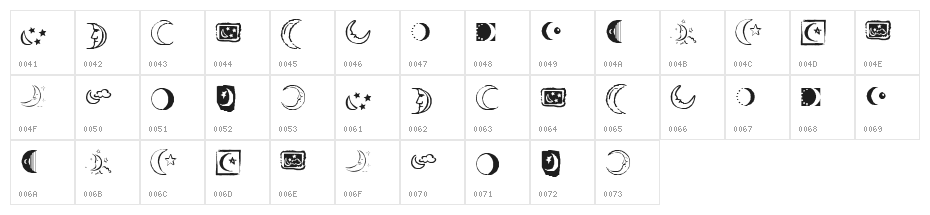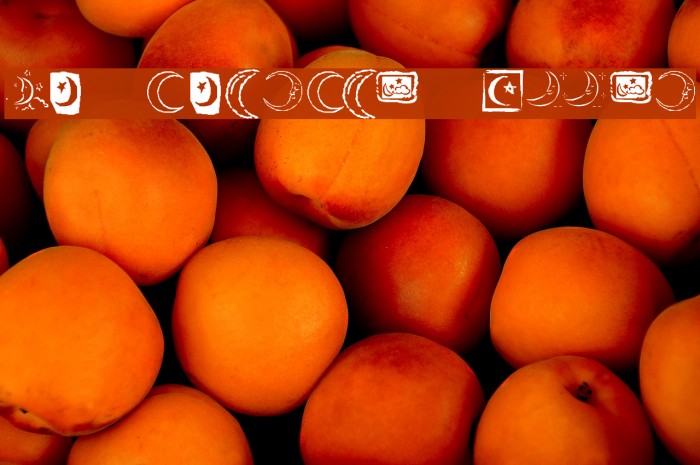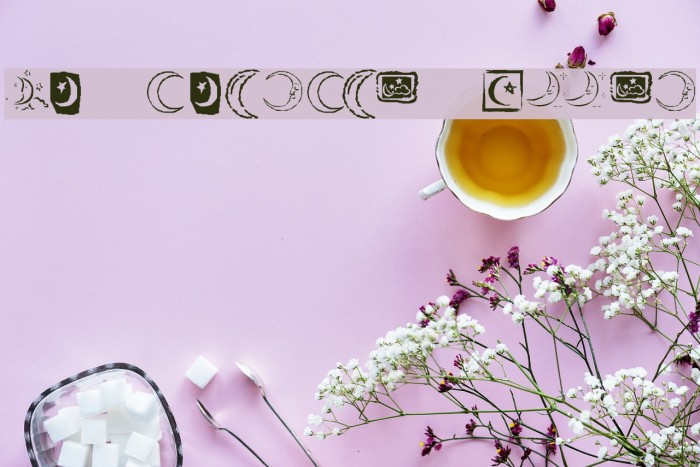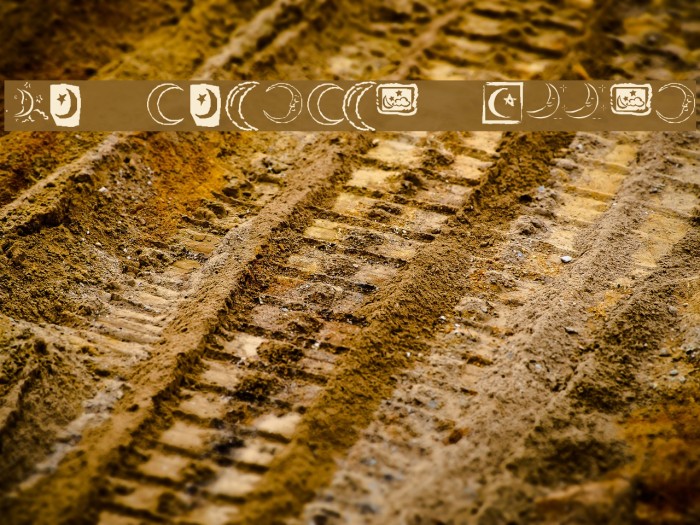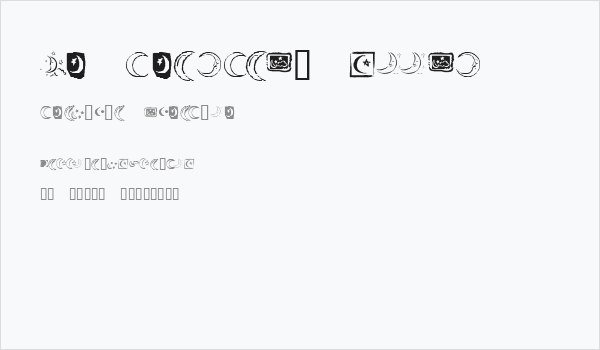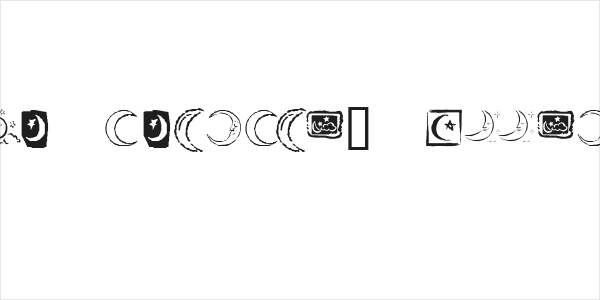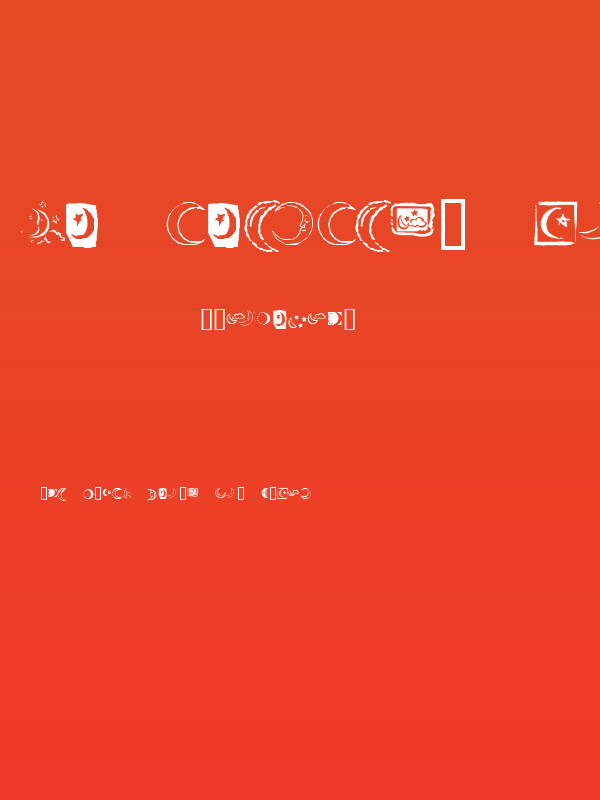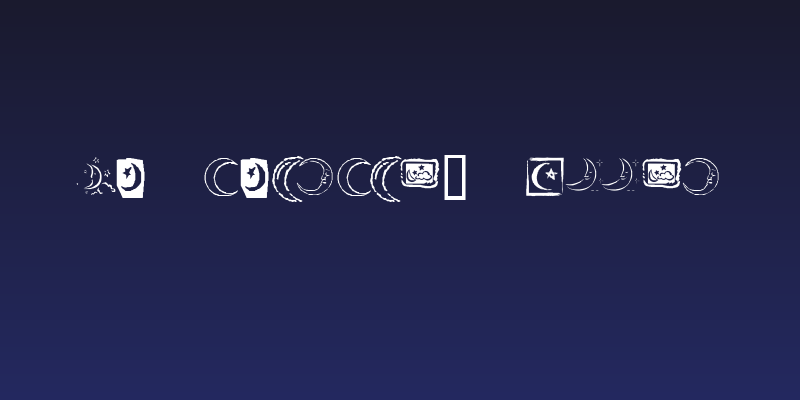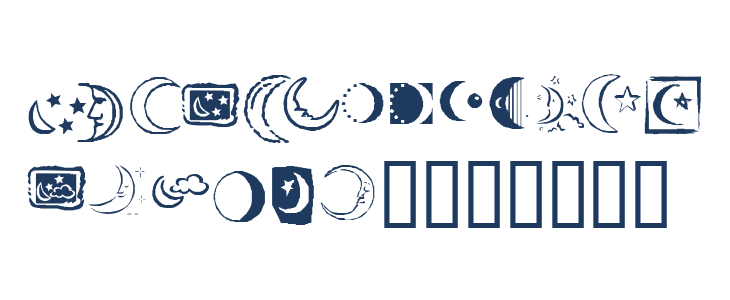
KR Crescent Moons Font
KR Crescent Moons Description
A decorative dingbat font featuring various crescent moon, star, cloud, and night sky illustrations in a hand-drawn style. Each glyph represents a unique celestial or night-themed icon rather than standard alphanumeric characters.
| Overall Style | Decorative, Hand-drawn, Whimsical |
| Use Case | Icons, Decorative elements, Themed graphics |
| Proposed Projects | Children's books, greeting cards, scrapbooking, themed party invitations, decorative borders, educational materials. |